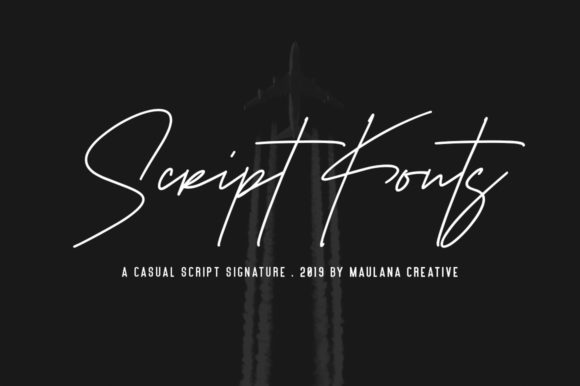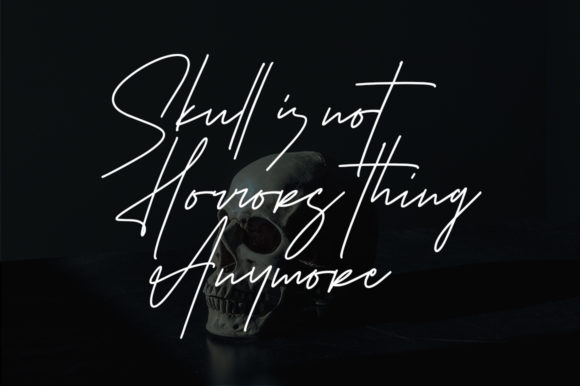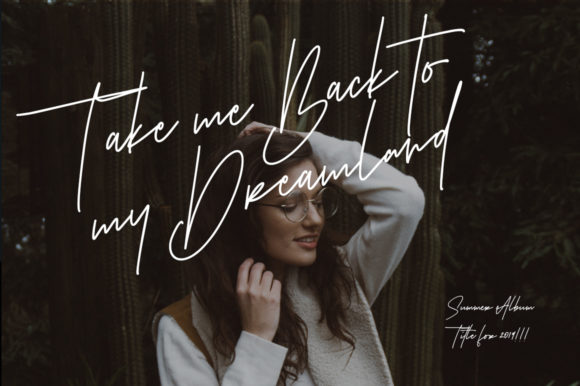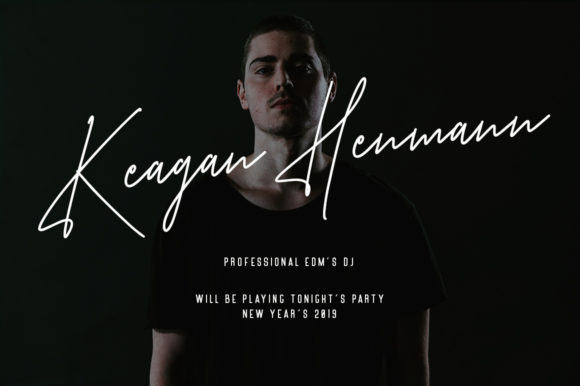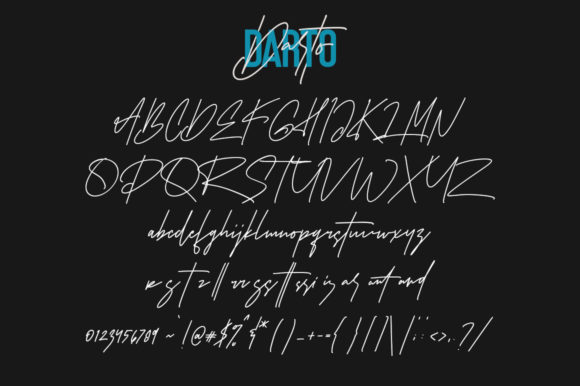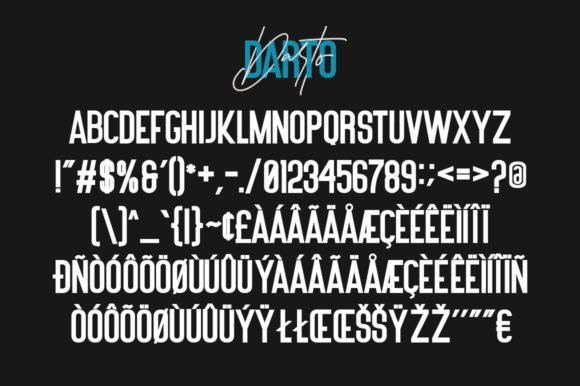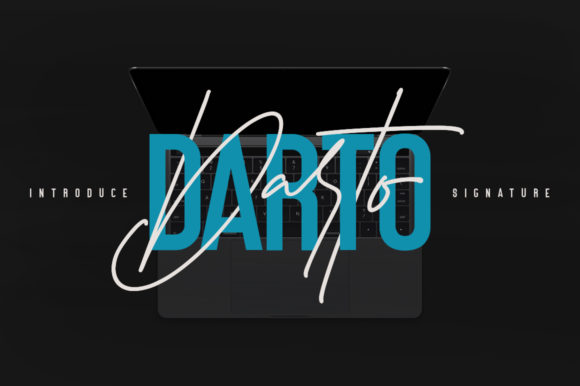
Darto Font: Elevate Your Designs with this Spectacular Duo Font
Are you tired of using the same old fonts in your designs? Look no further than Darto Font, a spectacular duo font that combines a sans and script font to take your creations to the next level. Incredibly versatile, Darto Font fits a wide pool of designs, making it the perfect addition to your font collection.
What is Darto Font?
Darto Font is a duo font that consists of two complementary fonts: a sans font and a script font. This powerful combination allows you to create stunning designs that are both modern and elegant. The sans font is perfect for headlines, titles, and body text, while the script font adds a touch of sophistication and whimsy to your designs.
Key Features of Darto Font
- Versatility: Darto Font is incredibly versatile, making it suitable for a wide range of designs, from modern and minimalist to elegant and sophisticated.
- Unique Character: The duo font combination gives Darto Font a unique character that sets it apart from other fonts.
- Ease of Use: Darto Font is easy to use and pairs perfectly with a variety of design software.
- High-Quality: Darto Font is a high-quality font that is designed to deliver exceptional results in your designs.
Benefits of Using Darto Font
So, why should you choose Darto Font for your designs? Here are just a few benefits of using this spectacular duo font:
- Elevate Your Designs: Darto Font has the power to elevate your designs to the highest levels, making them stand out from the crowd.
- Increase Creativity: With Darto Font, you’ll have access to a wide range of creative possibilities, allowing you to experiment and try new things.
- Save Time: Darto Font is easy to use and works seamlessly with a variety of design software, saving you time and effort.
- Professional Results: Darto Font is designed to deliver professional results, making it perfect for designers and crafters who want to produce high-quality work.
How to Use Darto Font
Using Darto Font is easy! Here are a few tips to get you started:
- Pair the Fonts: Pair the sans font with the script font to create stunning designs that are both modern and elegant.
- Experiment with Sizes: Experiment with different font sizes to create visual interest and hierarchy in your designs.
- Add a Pop of Color: Add a pop of color to your designs by using the script font in a bold, contrasting color.
- Play with Ligatures: Play with ligatures to add a touch of whimsy and personality to your designs.
Design Ideas with Darto Font
Darto Font is incredibly versatile, making it suitable for a wide range of design projects. Here are a few ideas to get you started:
- Branding and Logo Design: Use Darto Font to create stunning brand identities and logos that stand out from the crowd.
- Wedding and Event Design: Use Darto Font to create beautiful wedding invitations, programs, and other event materials.
- Packaging Design: Use Darto Font to create eye-catching packaging designs that showcase your product.
- Digital Design: Use Darto Font to create stunning digital designs, such as social media graphics and website headers.
In conclusion, Darto Font is a spectacular duo font that has the power to elevate your designs to the highest levels. With its versatility, unique character, and ease of use, Darto Font is the perfect addition to your font collection. Whether you’re a designer or crafter, Darto Font is sure to inspire your creativity and help you produce professional results. So why wait? Add Darto Font to your favorite creative ideas and notice how it makes them come alive!